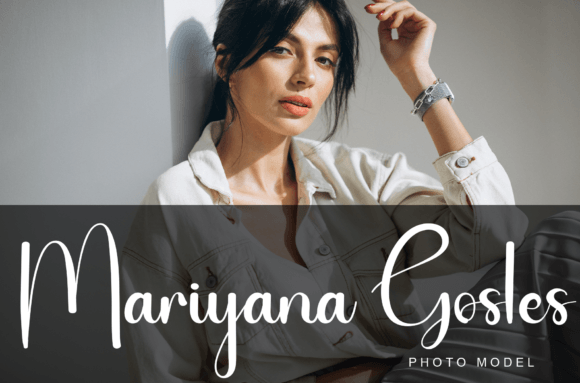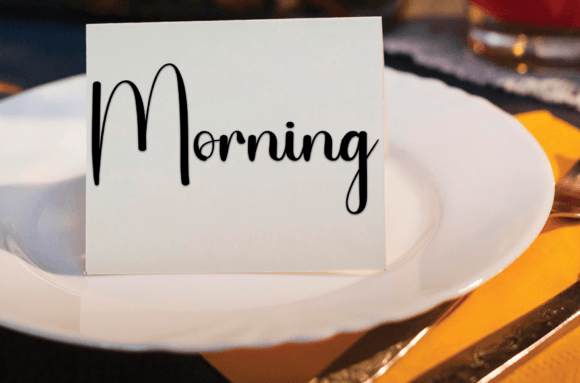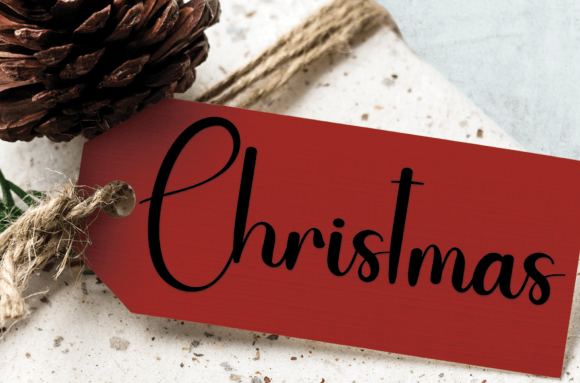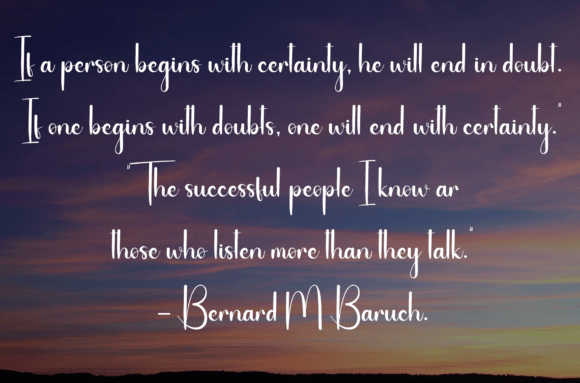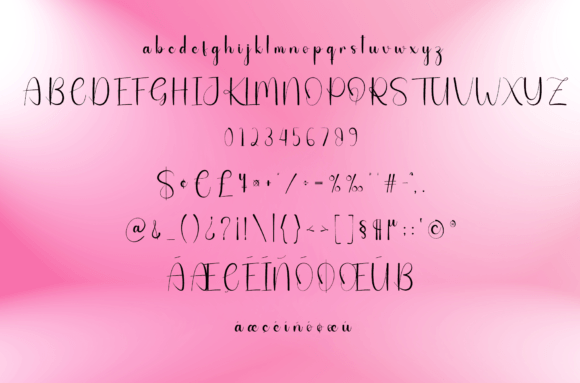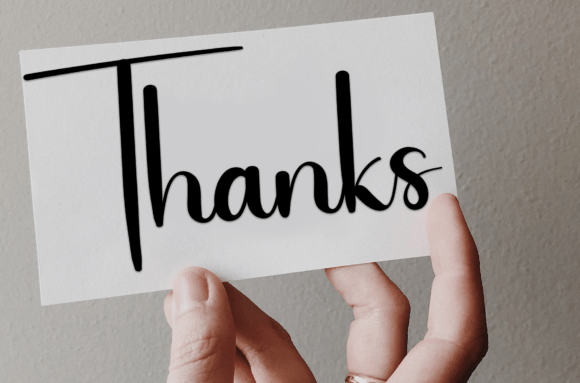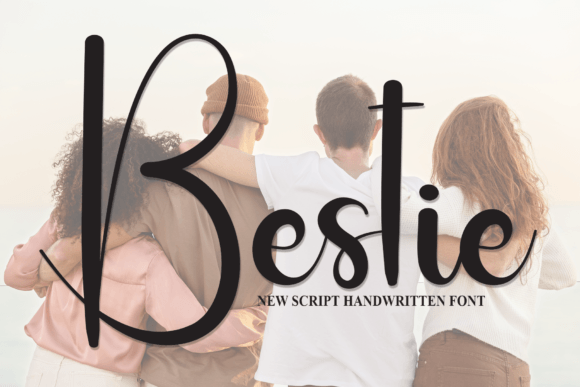
The Bestie Font: A Sweet and Friendly Companion for Your Design Projects
A Personal Review of Bestie Font
What I Love About Bestie Font
- ✨ Sweet and friendly vibe: Bestie font has a warm and approachable feel that’s perfect for creating designs that feel personal and inviting.
- ✅ Highly legible: Despite its playful nature, Bestie font is surprisingly easy to read, making it ideal for longer texts and paragraphs.
- 🎉 Versatile: Whether you’re designing wedding invitations, greeting cards, or social media graphics, Bestie font adapts seamlessly to different contexts and styles.
While Bestie font is an amazing addition to any design project, there are a few things to keep in mind:
- 🤔 Limited formal use: Due to its playful nature, Bestie font might not be the best choice for more formal or professional designs, such as business reports or academic papers.
- ⚠️ Some glyph limitations: While Bestie font has a range of lovely glyphs and alternates, it might not have every special character or symbol you need.
The Story Behind Bestie Font
Bestie font was designed with love and care by a talented type designer who wanted to create a font that would bring a smile to people’s faces. Inspired by the joy of friendship and the beauty of handwritten letters, Bestie font was born to add a touch of warmth and personality to any design project.
Q: What is Bestie font best used for?
A: Bestie font is perfect for designs that require a playful and friendly touch, such as wedding invitations, greeting cards, and social media graphics.
Q: Is Bestie font easy to read?
A: Yes, Bestie font is highly legible, making it ideal for longer texts and paragraphs.